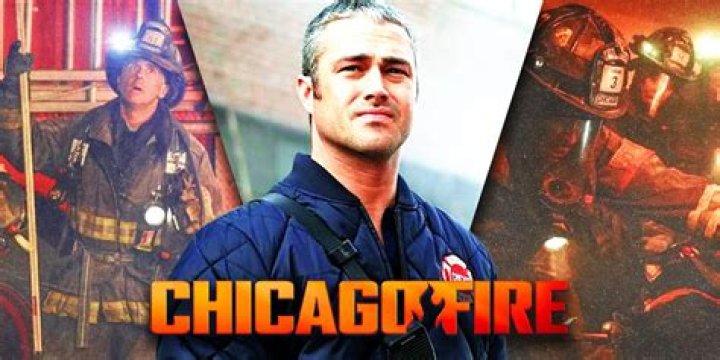
What font is the Chicago Fire Department logo?
The font used for Chicago Fire logo is very similar to Agency FB Black Condensed, which is a square sans serif font designed by David Berlow & Morris Fuller Benton and published by Font Bureau.